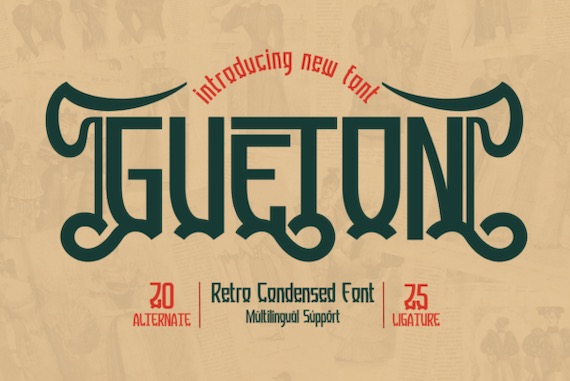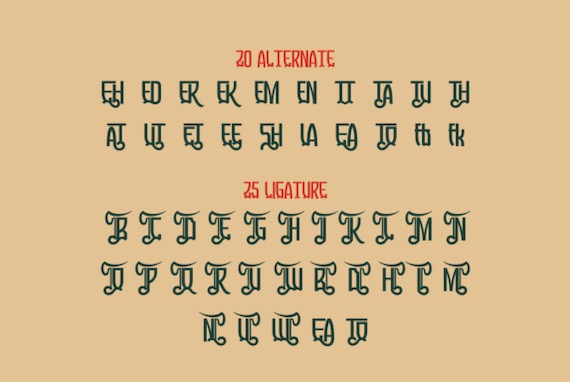
Gueton is a classy and retro condensed display font that was created and shared by Twinletter, it adds a classic touch to your designs. Whether you’re working on a vintage-inspired project or just want to add some nostalgic charm to your work, Gueton is a perfect choice. Remember that the font is PUA encoded, meaning you can access all delightful glyphs and swashes effortlessly.
Gueton Retro Display Font